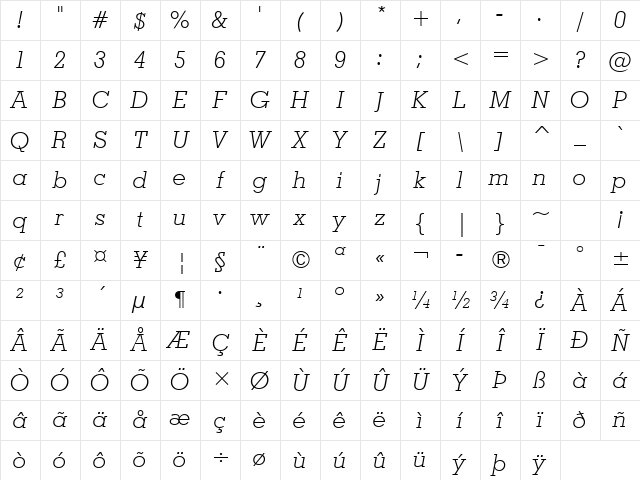
Complete GeoSlab703 Lt BT Light Italic glyph index. Displaying only characters natively supported by GeoSlab703 Lt BT Light Italic font.
GeoSlab703 Lt BT features prominent, blocky serifs that give it a confident, grounded presence - equally at home in editorial settings and bold branding work. The slanted form adds forward momentum and visual energy. Its slender proportions lend an understated elegance to any composition.